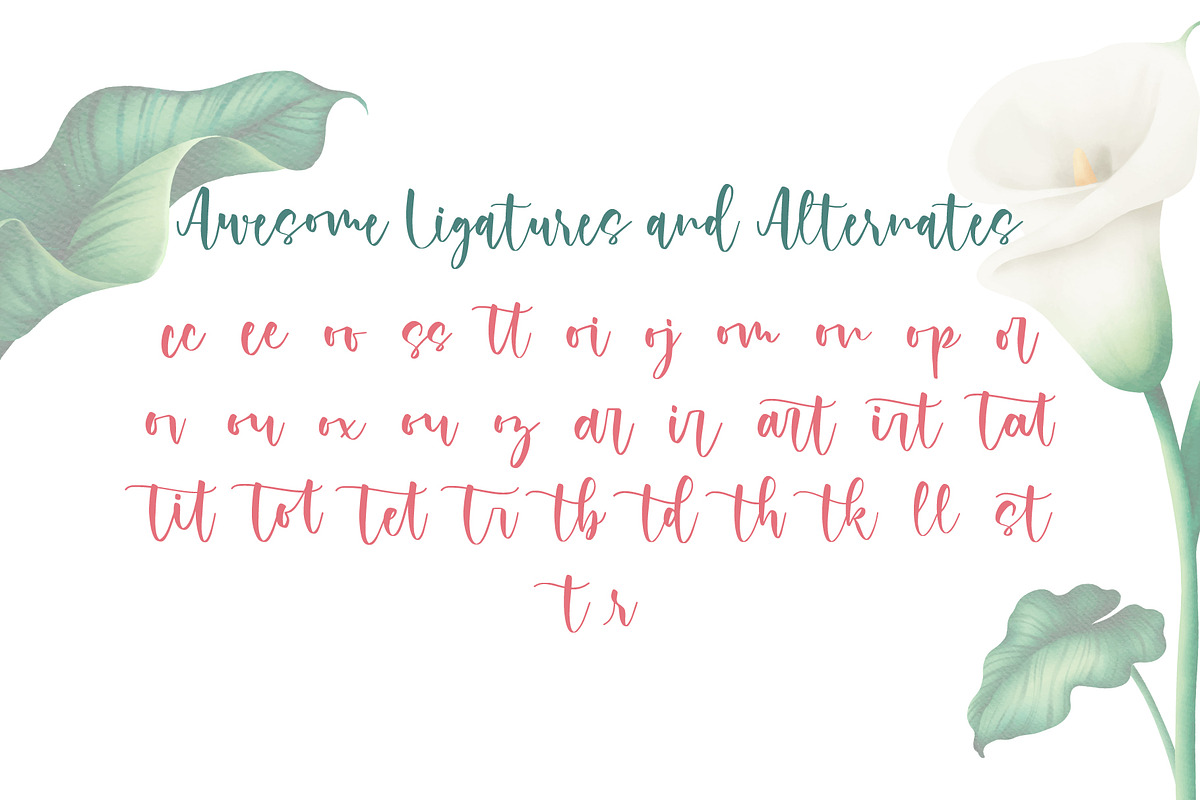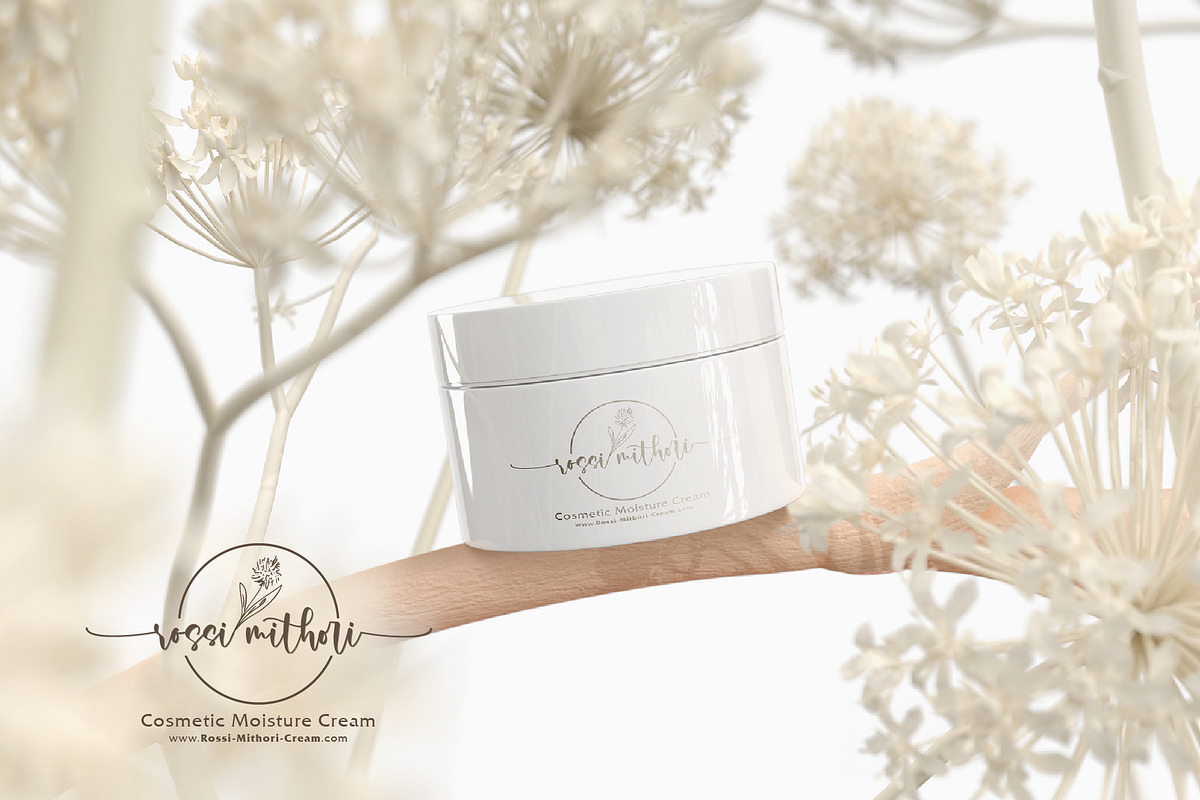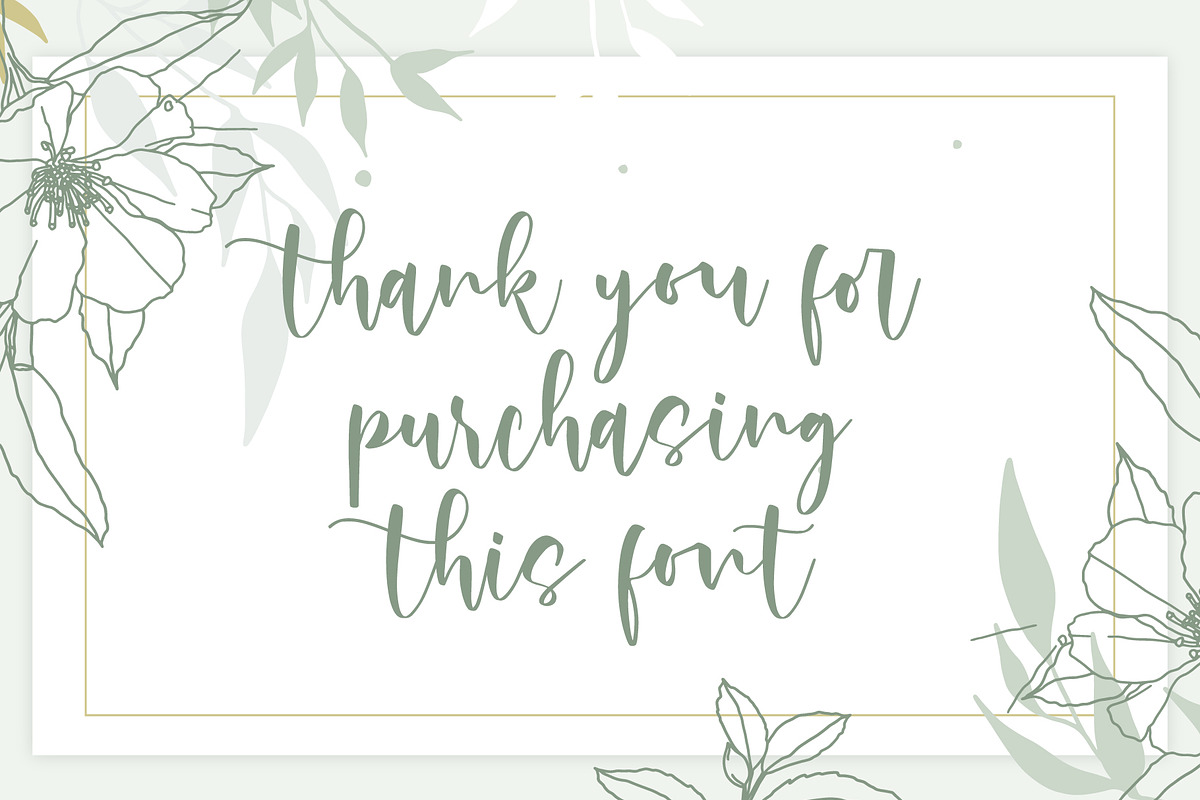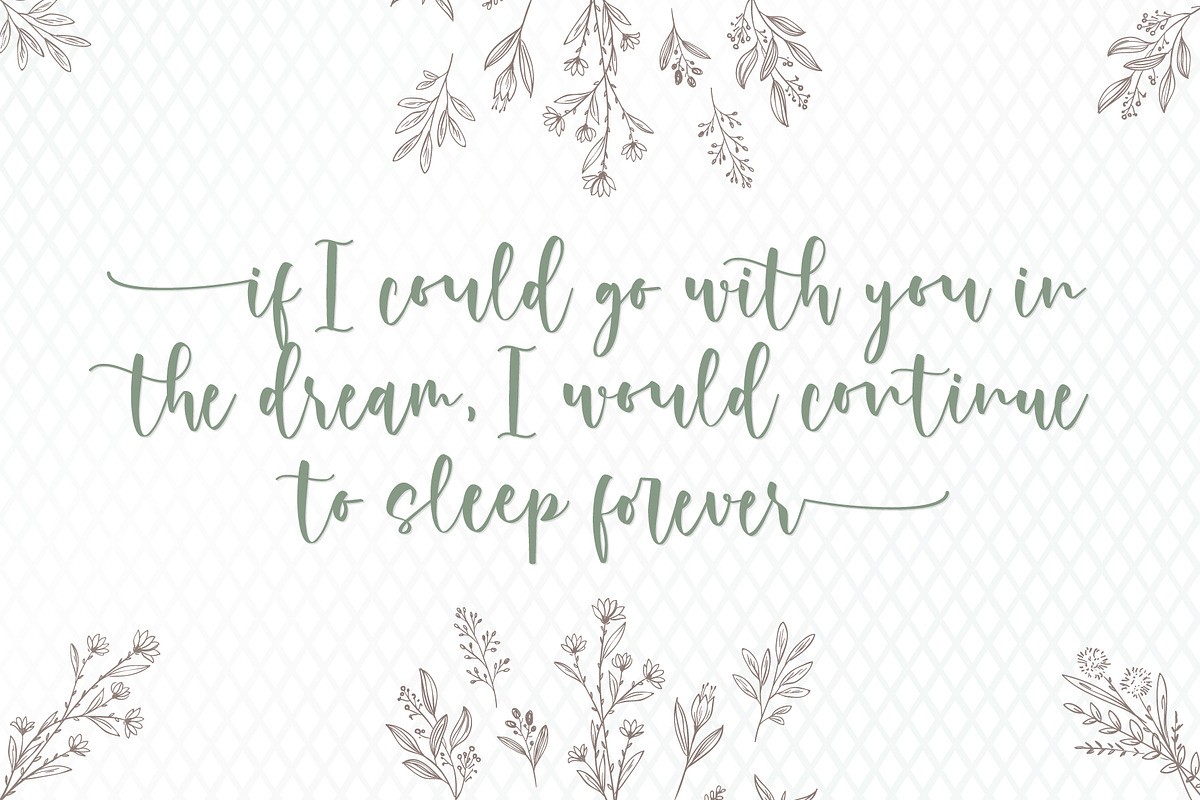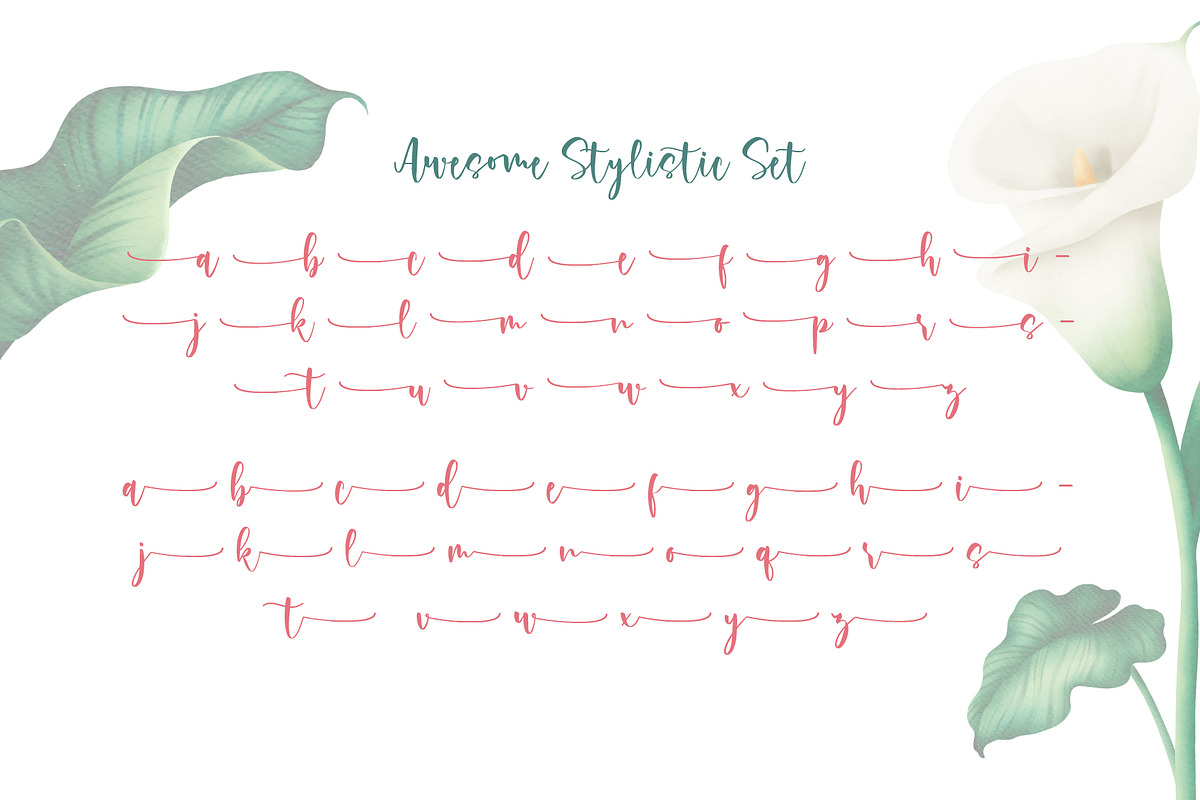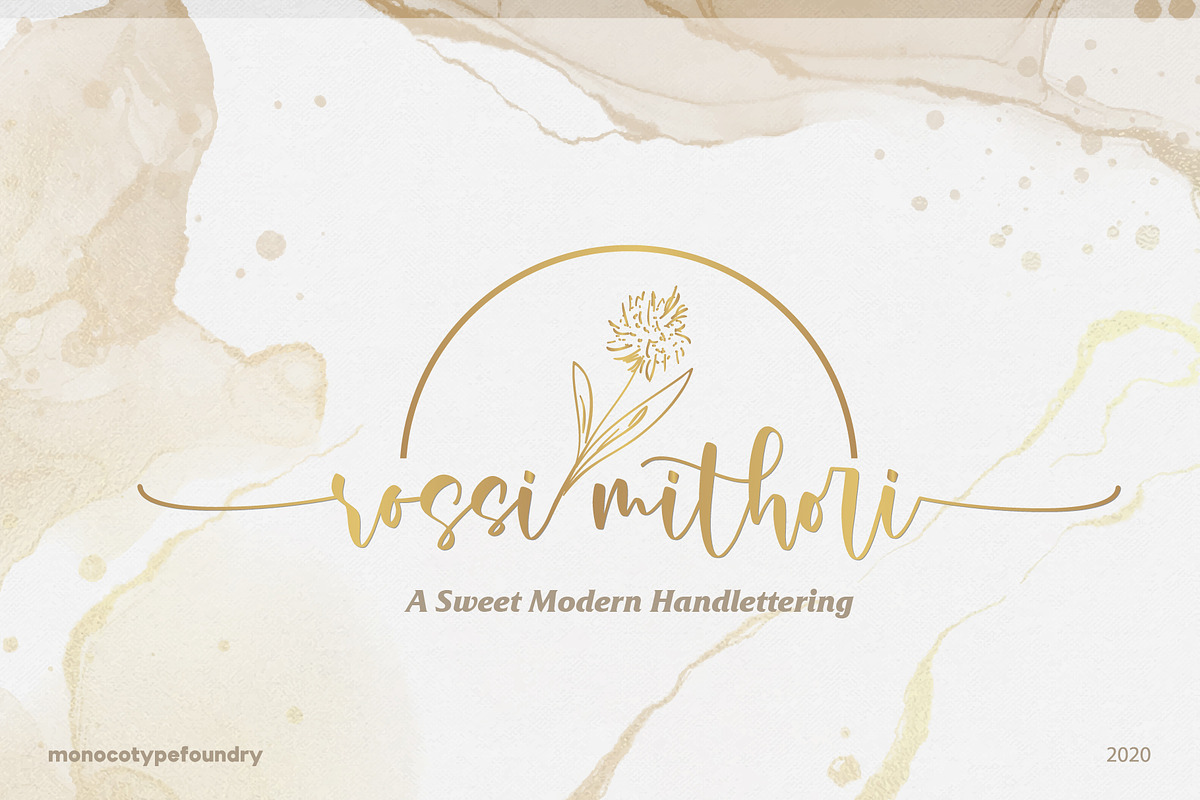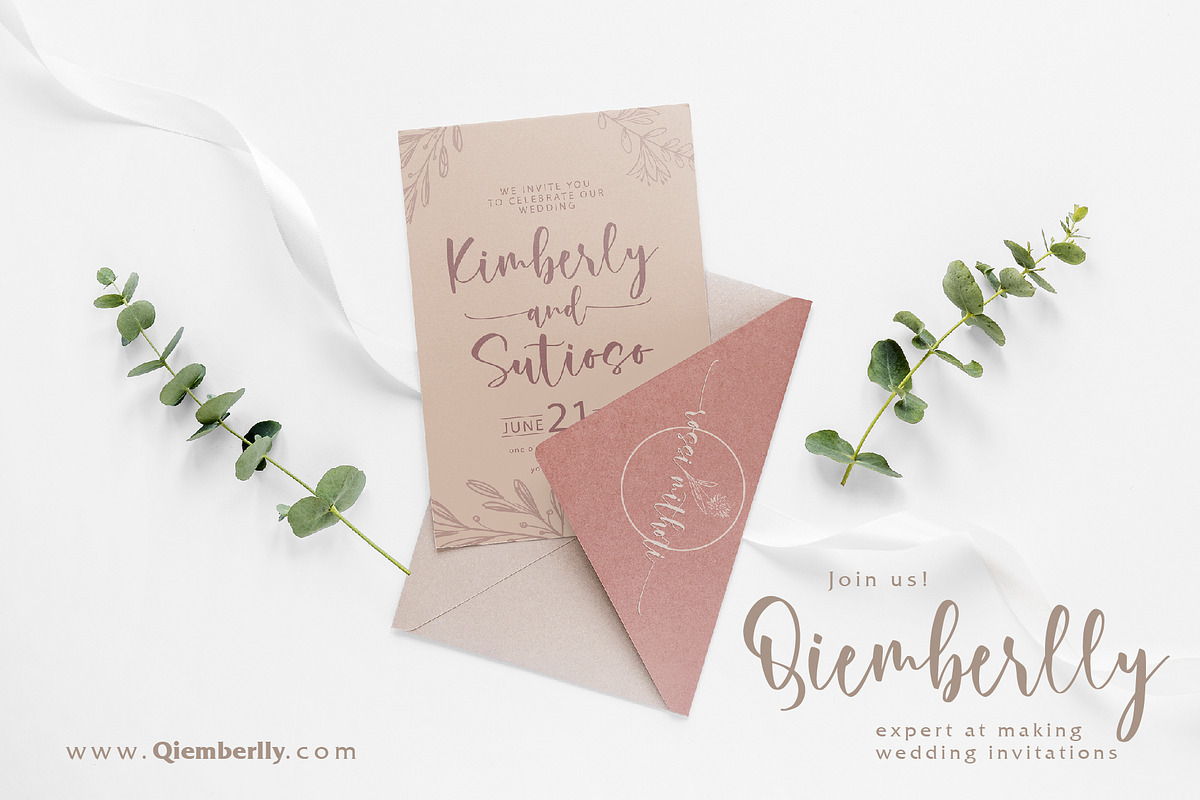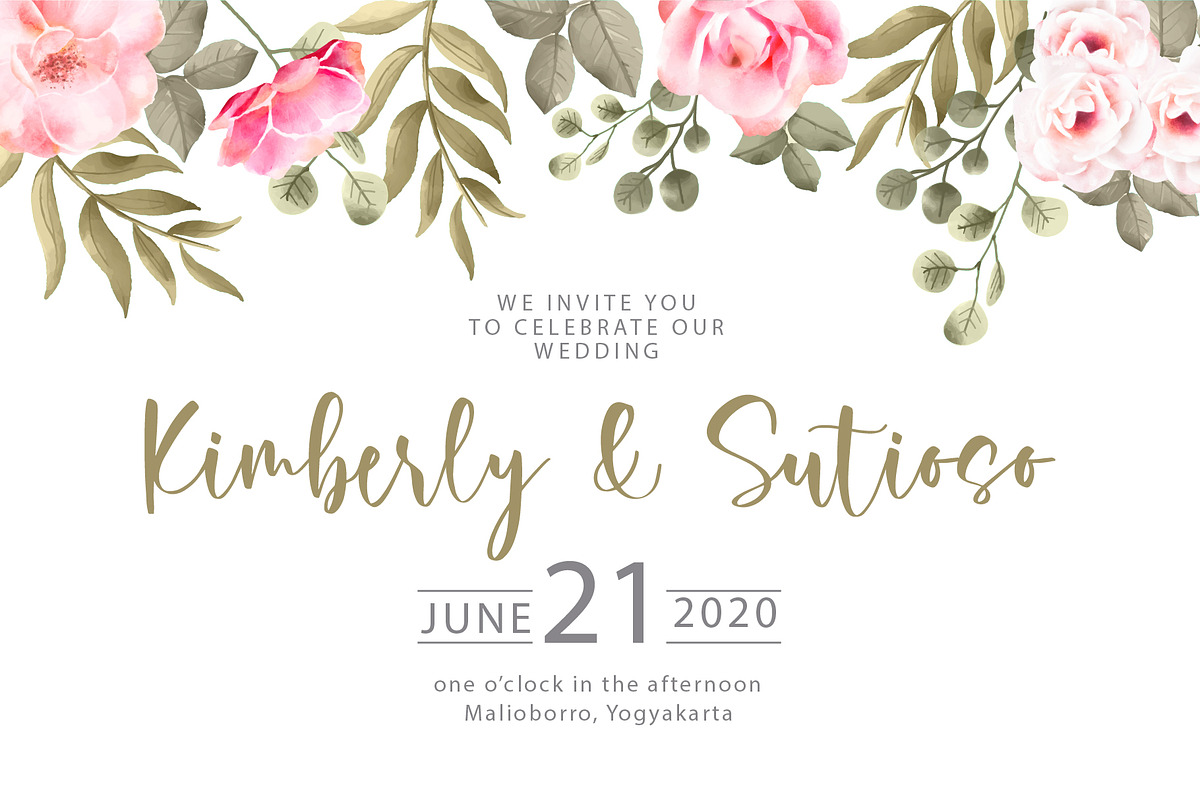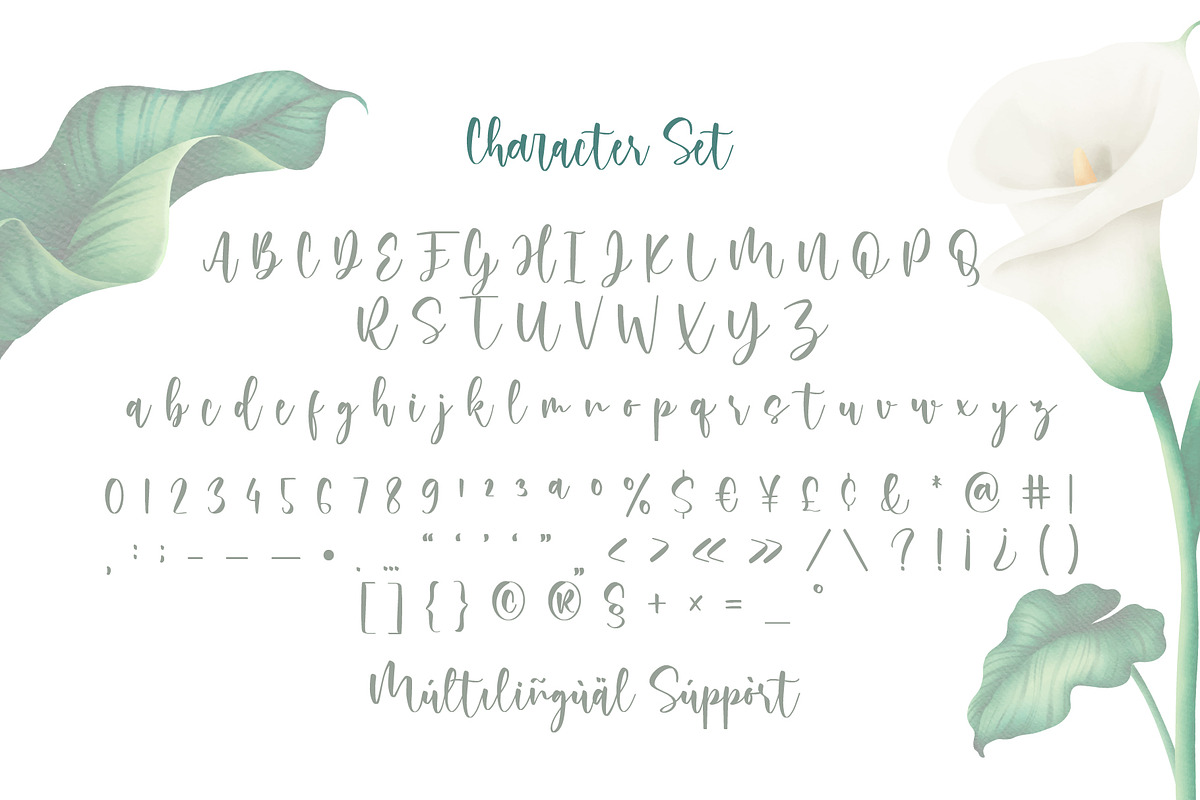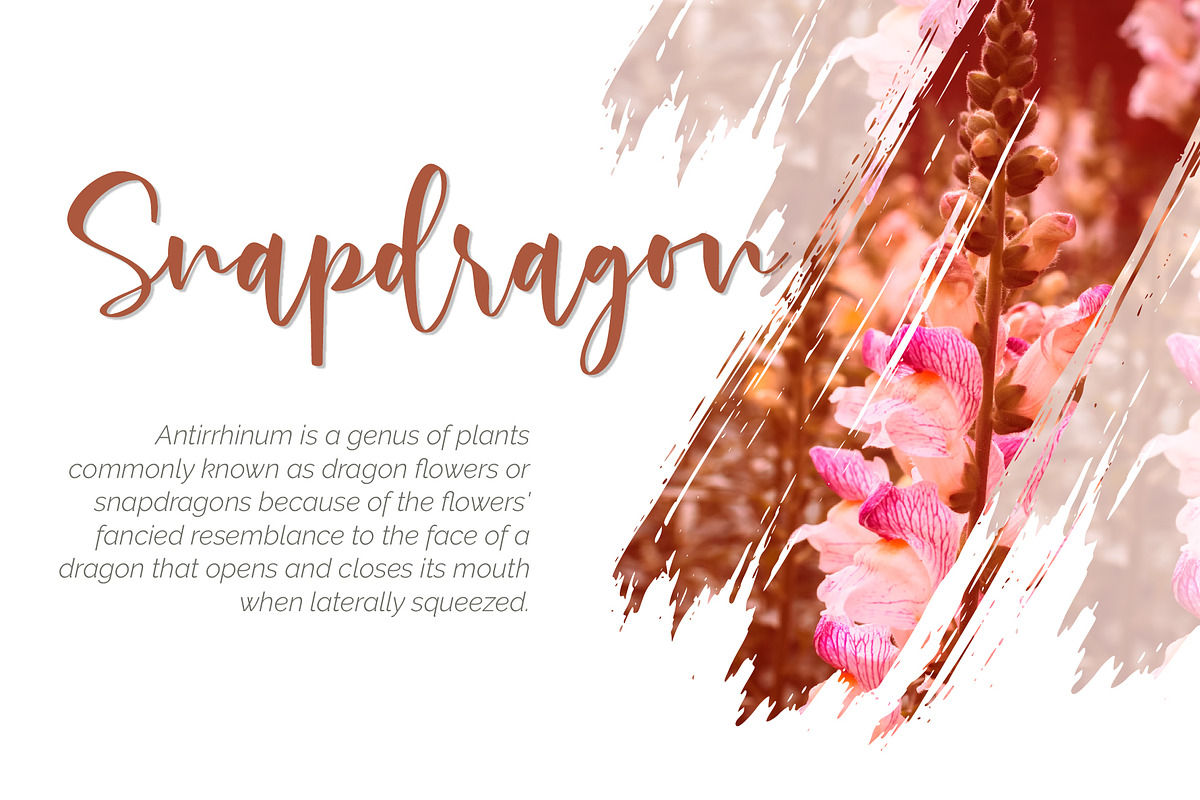
Rossi Mithori - Beautiful
Rossi Mithori is a script font created with love, sincerity, and patience. can be used to make invitation writing, lettering, and all graphic design needs. This font is only equipped with 2 stylistic sets, but it will still look beautiful; and some alternative characters that will make your design look more attractive and beautiful.